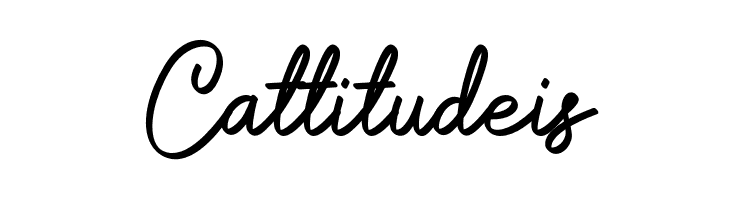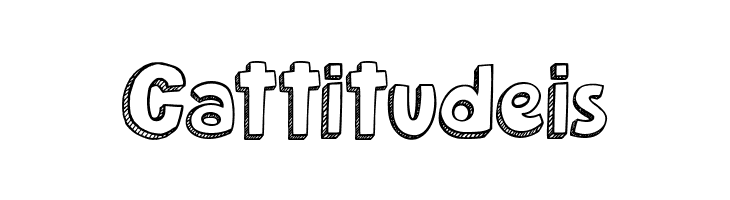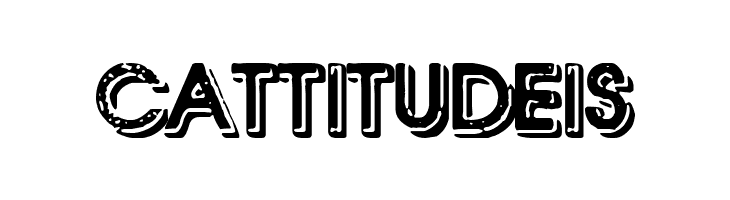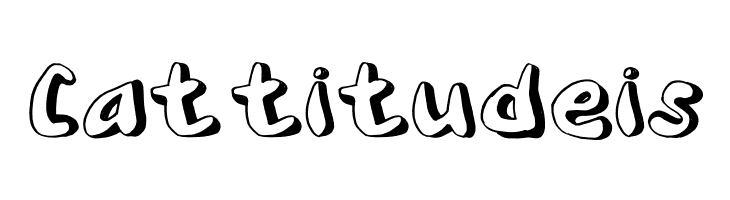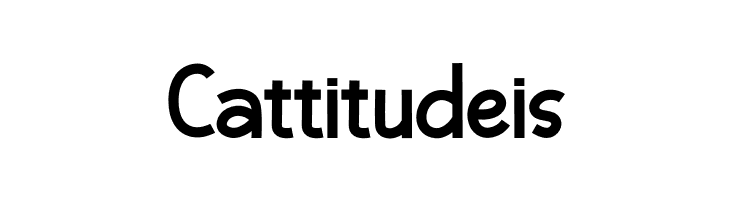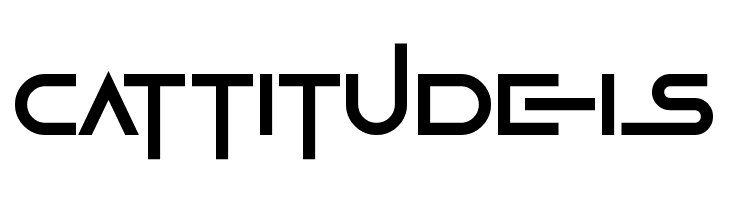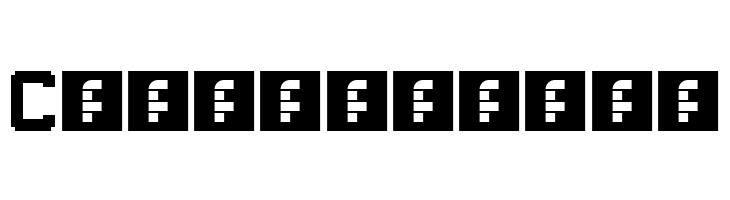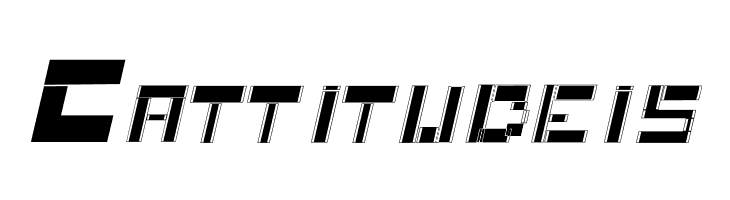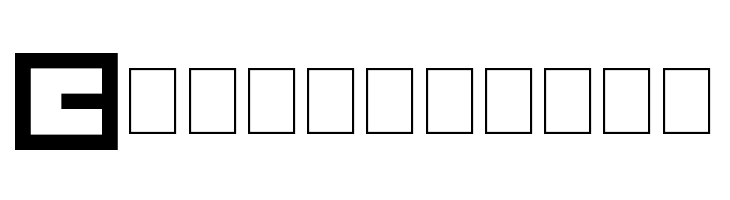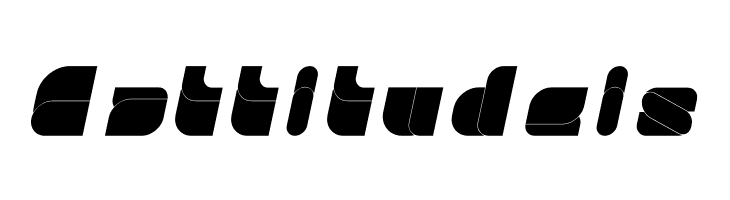
A bold, handwritten font with a lively and energetic style.
A playful, handwritten font with a casual and informal style.
A bold, decorative font with a three-dimensional, vintage-inspired style.
A bold, angular font with a futuristic and geometric design.
A bold, geometric font with a futuristic, digital aesthetic.
A bold, playful font with thick strokes and dynamic shapes.
A playful, comic-style font with bold, rounded characters and thick outlines.
A bold, geometric font with a retro video game aesthetic.
A bold, geometric font with blocky, angular letterforms and a modern yet vintage feel.
A futuristic, geometric font with rounded edges and consistent line weight.
A bold, geometric font with a retro, digital aesthetic.
A modern, playful font with geometric elements and dynamic contrast.
A futuristic, geometric font with sharp angles and clean lines.
A playful, hand-drawn font with bold outlines and sketch-like texture.
A bold, geometric font with a 3D effect and retro gaming vibe.
A bold, geometric stencil font with an industrial feel.
A bold, geometric font with a futuristic and modern aesthetic.
A bold, italicized font with a futuristic and sporty design.
A hollow, geometric font with a futuristic and playful design.
A futuristic, hollow, and inverse font with a digital aesthetic.
A bold, geometric font with a futuristic and modular design.
A bold, geometric font with futuristic cut-out shapes.
A bold, geometric font with a futuristic and mechanical style.
A bold, industrial font with blocky, geometric characters and rounded edges.
A bold, modern sans-serif font with a geometric and playful style.
A bold, dynamic brush script font with lively, expressive strokes.
A bold, futuristic font with geometric and edgy design elements.
A bold, italicized font with sharp angles and a dynamic, modern style.
A modern, geometric outline font with a playful and futuristic style.
A bold, distressed font with a vintage, weathered appearance.
A graceful and flowing script font with elegant cursive letters.
A retro, pixelated font inspired by classic 1980s video games.
A bold, pixelated font with a retro video game aesthetic.
A pixelated, geometric font with a digital, arcade-inspired style.